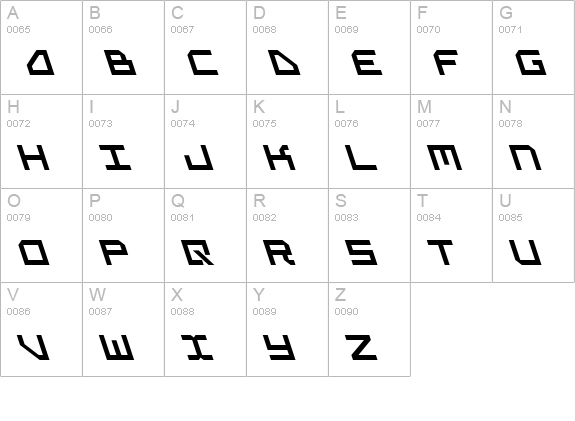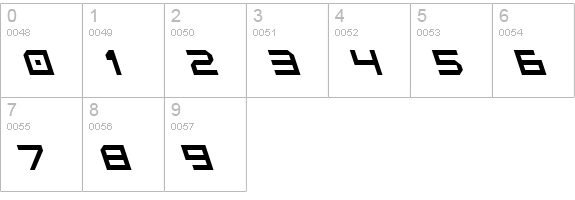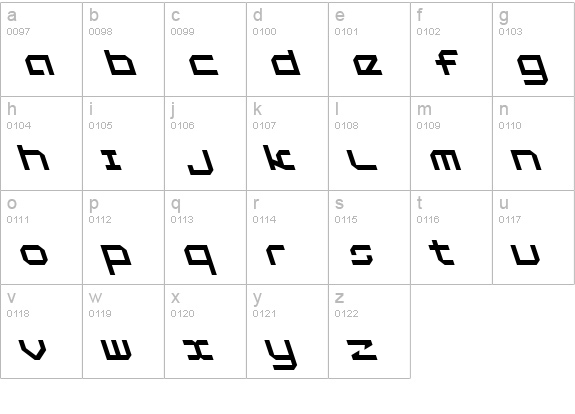
Introducing the exquisite and elegant 5th Agent Leftalic font - a sophisticated typeface that exudes modernity and style. With its sleek lines and subtly slanted design, this font is perfect for adding a touch of sophistication to any project. The 5th Agent Leftalic font strikes the perfect balance between professionalism and creativity, making it ideal for a wide range of design applications. Best of all, the 5th Agent Leftalic font is completely free to download at FontsMarket.com. Whether you're working on a branding project, creating eye-catching posters, or designing sleek websites, this font is sure to elevate your work to the next level. Don't miss out on the opportunity to enhance your designs with the 5th Agent Leftalic font - download it for free today at FontsMarket.com!